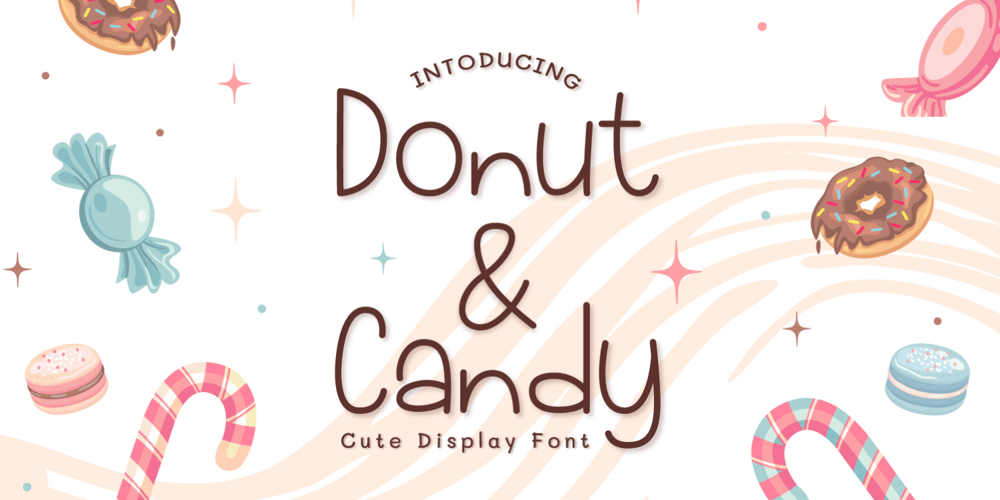
Donut & Candy Font Family was designed by Miftahul Habib and published by Tlatous Type. Donut & Candy contains 1 styles and family package options. Introducing Donut & Candy by Tlatous Type.Dinut & Candy is a Modern Handwritten Font.This font is perfect for product packaging, branding project, megazine, social media, wedding, or just used to express words above the background.